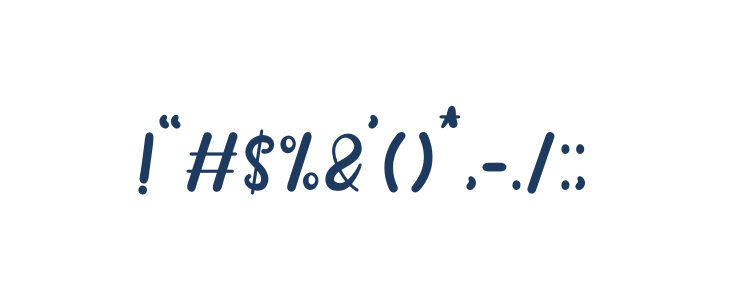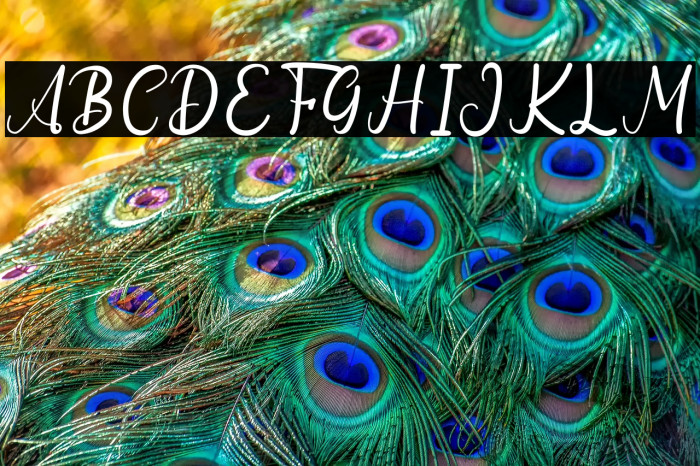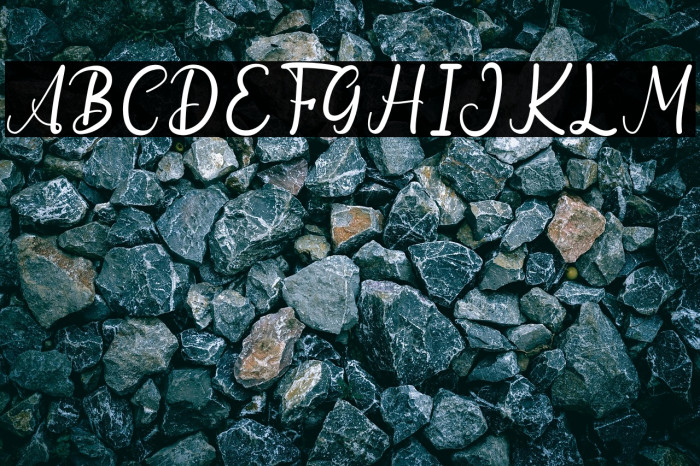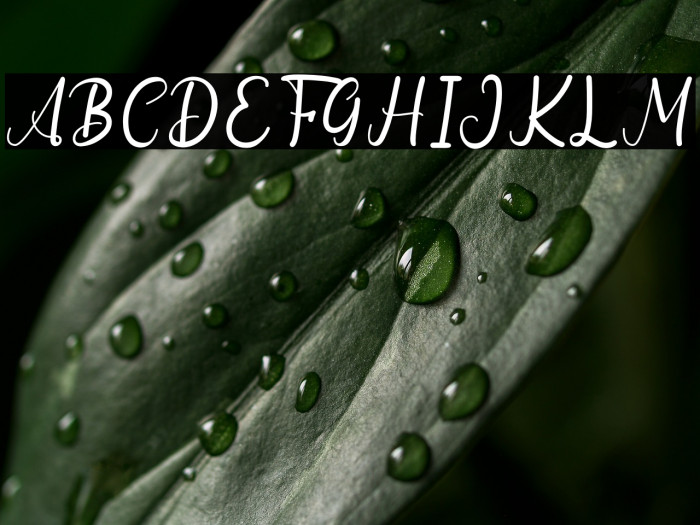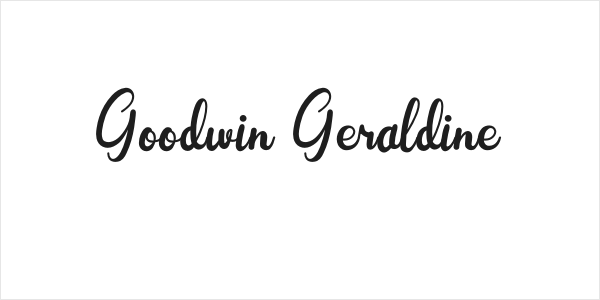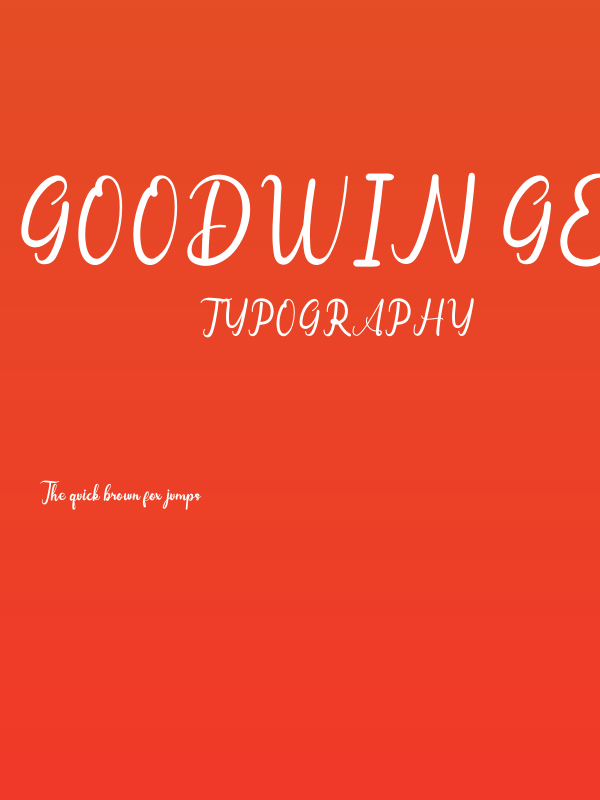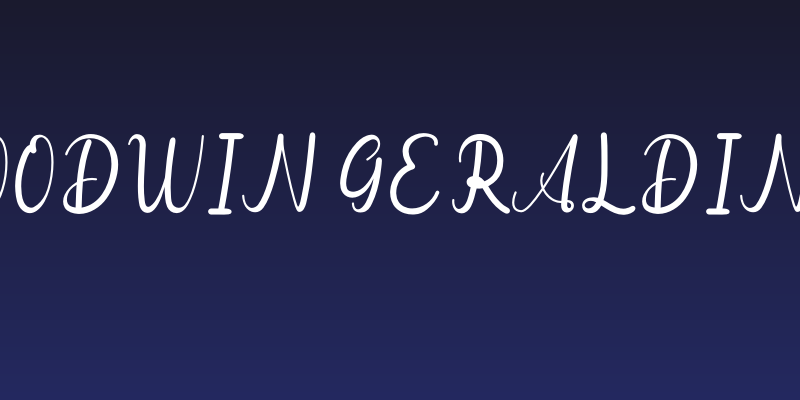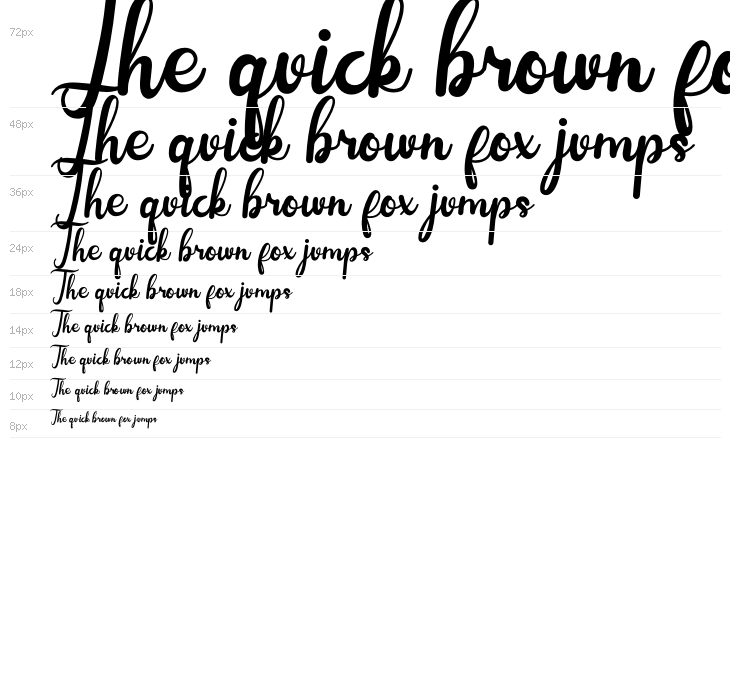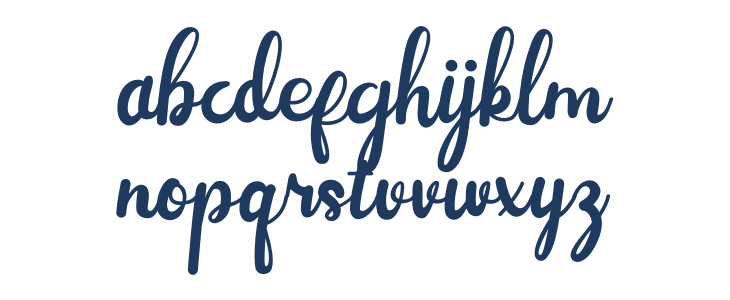
Goodwin Geraldine Font
Goodwin Geraldine Description
This font features a dynamic and flowing script style, characterized by its elegant and cursive letterforms. The uppercase letters exhibit a graceful, slightly slanted appearance with smooth curves and delicate loops, while the lowercase letters are more bold and connected, creating a harmonious and fluid look. The font maintains a consistent stroke width, providing a balanced and cohesive visual appeal. The special characters are designed to complement the overall style, with a playful yet sophisticated touch. This font is ideal for projects that require a personal and artistic flair.